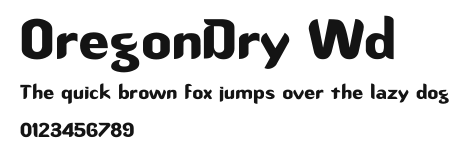
• Font Name: OregonDry Wd
• Full Font Name: OregonDry Wd
About OregonDry Wd.ttf
OregonDry Wd.ttf is a modern, elegant sans-serif font designed for ultimate readability and visual harmony. Perfect for branding, headlines, web design, and print materials.